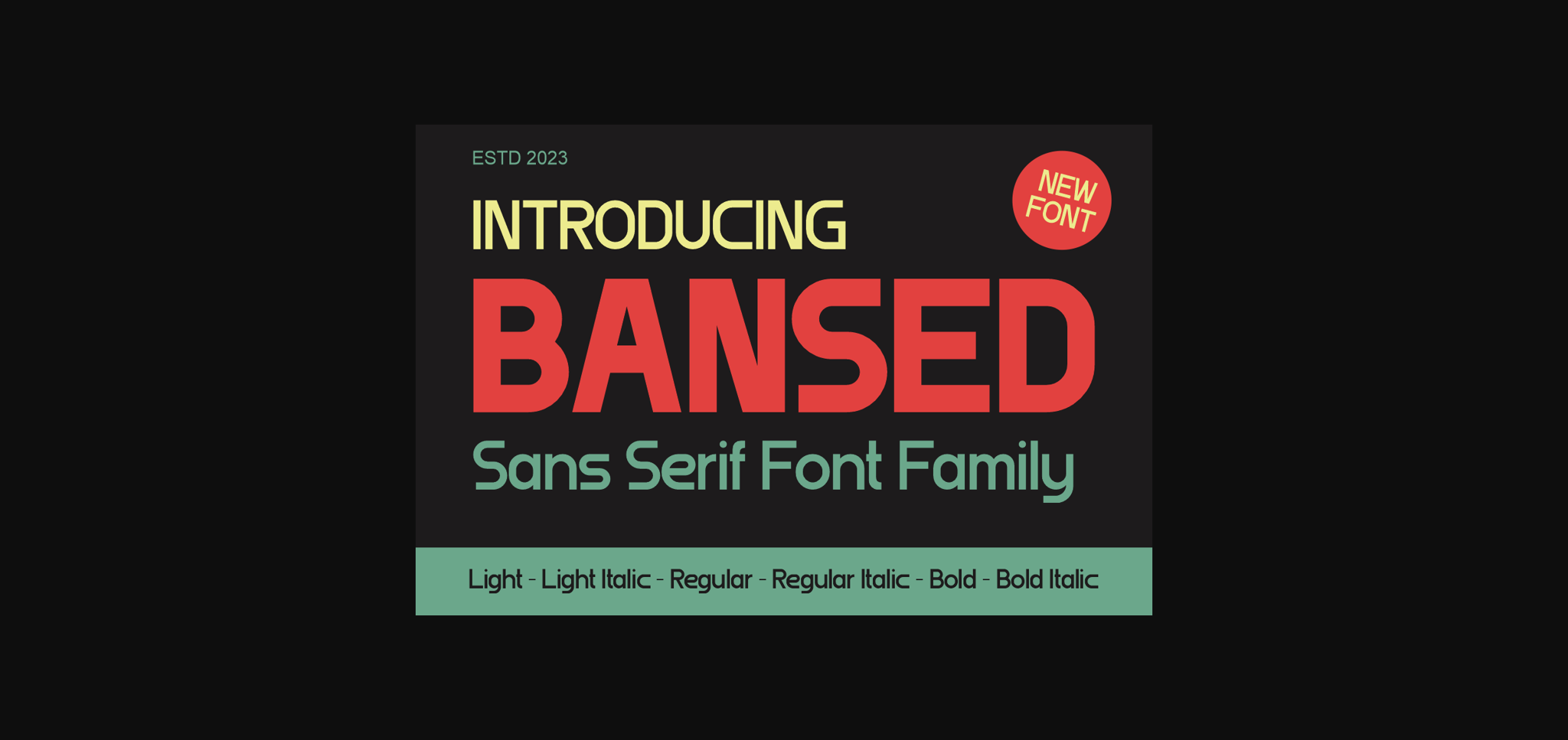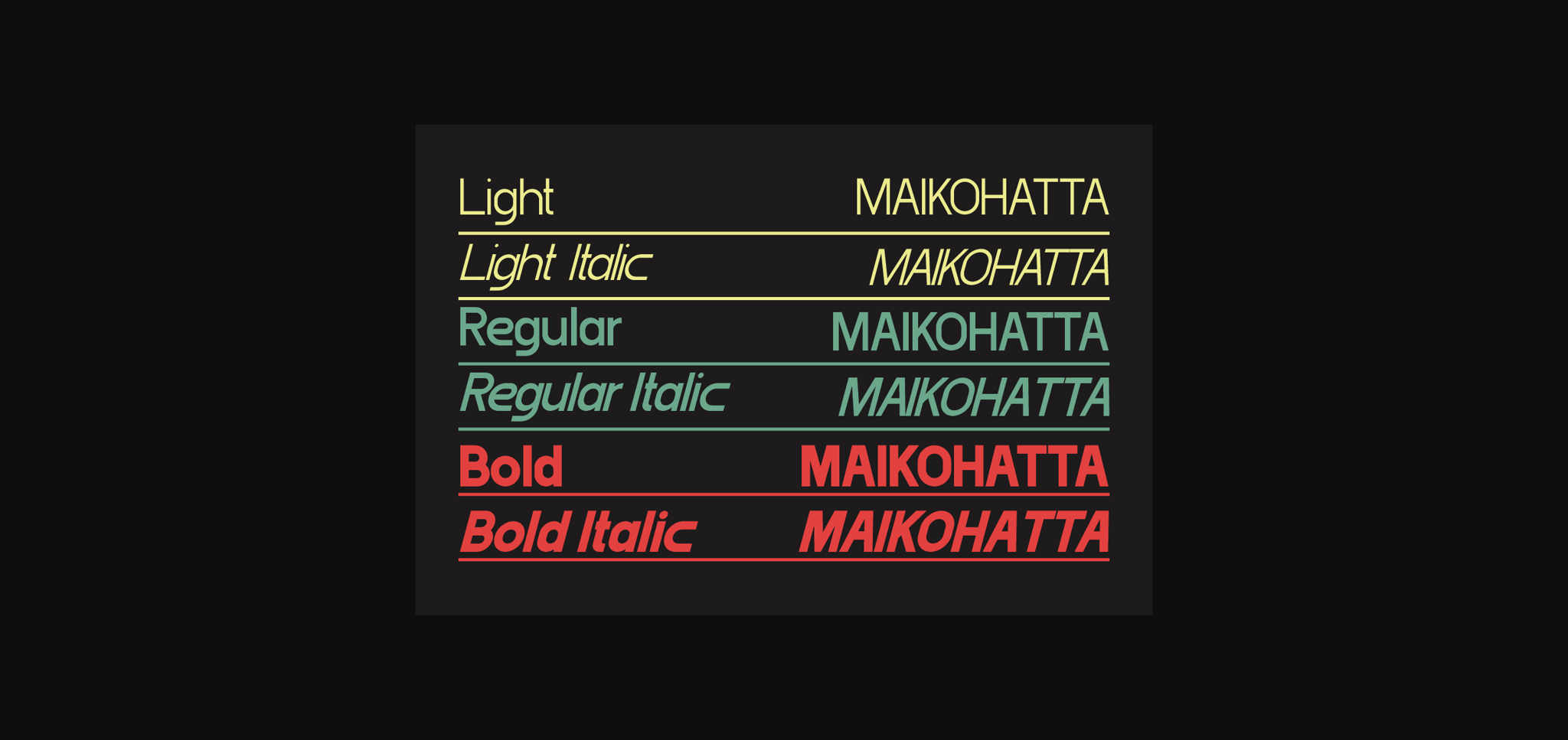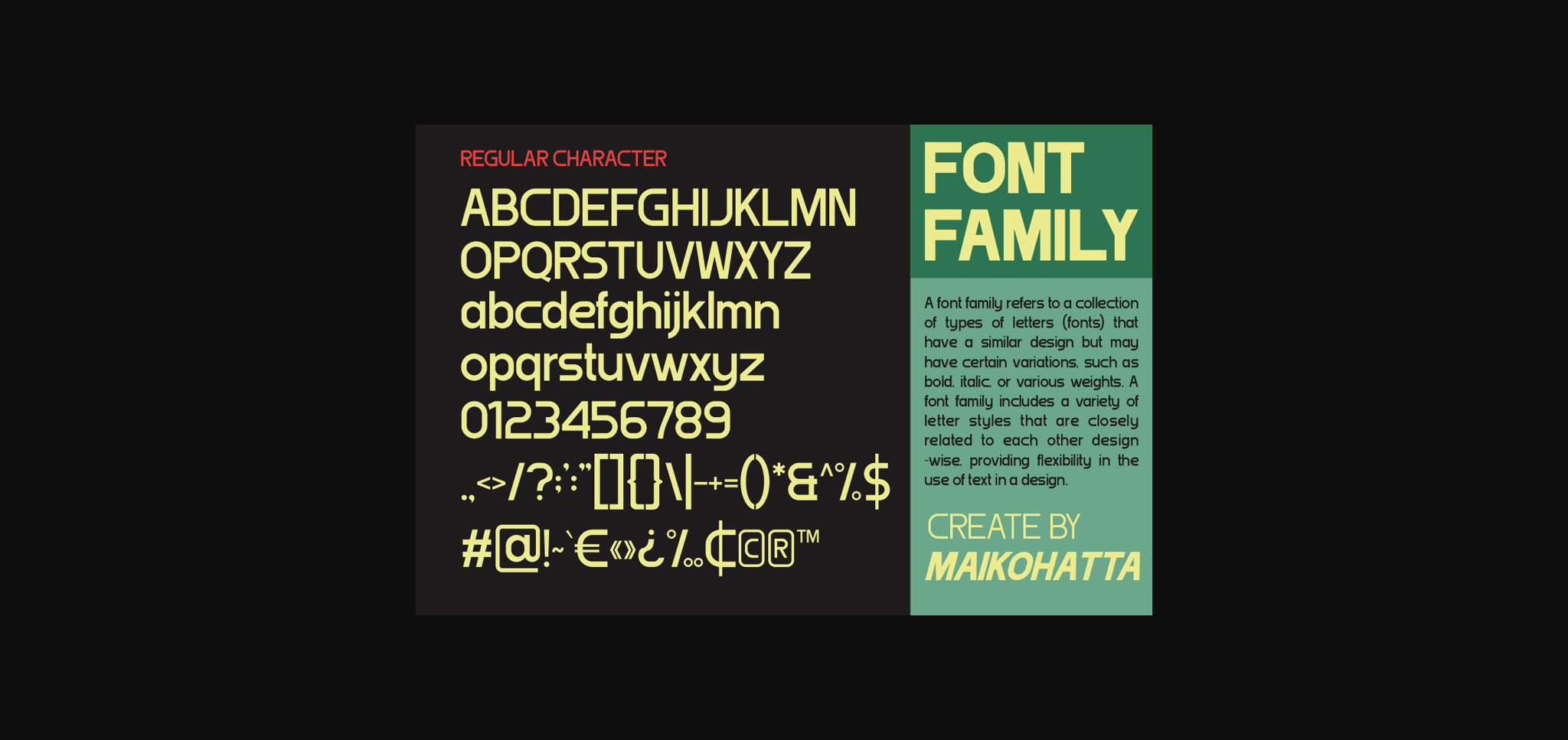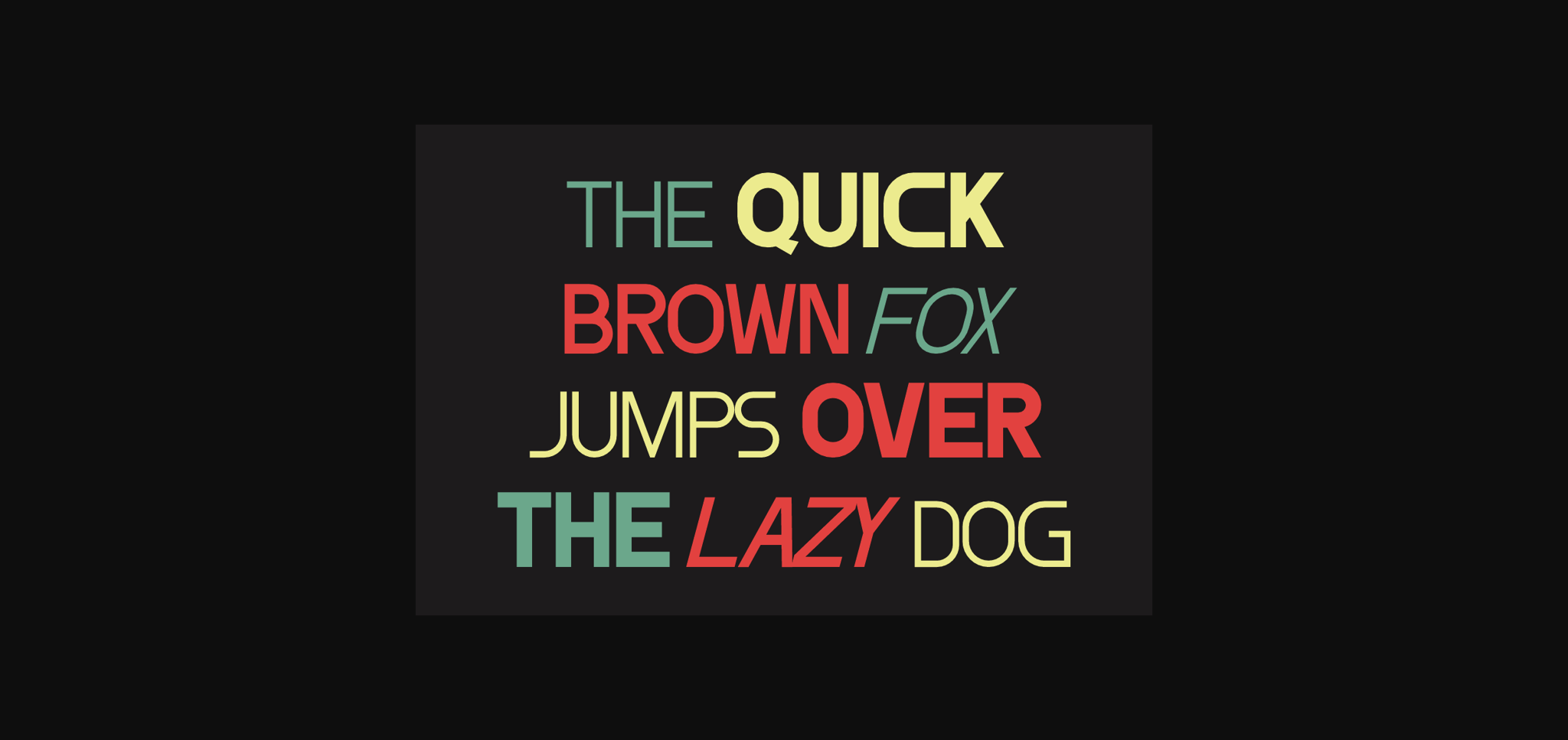
About Bansed Font
A sans-serif font family available in various styles is a highly versatile choice for graphic design and clean, modern text displays. This sans-serif font family offers flexibility in graphic design, and its various styles allow you to customize the appearance of text to suit your project’s needs. With various combinations, you can create attractive and easy-to-read text displays in various contexts.